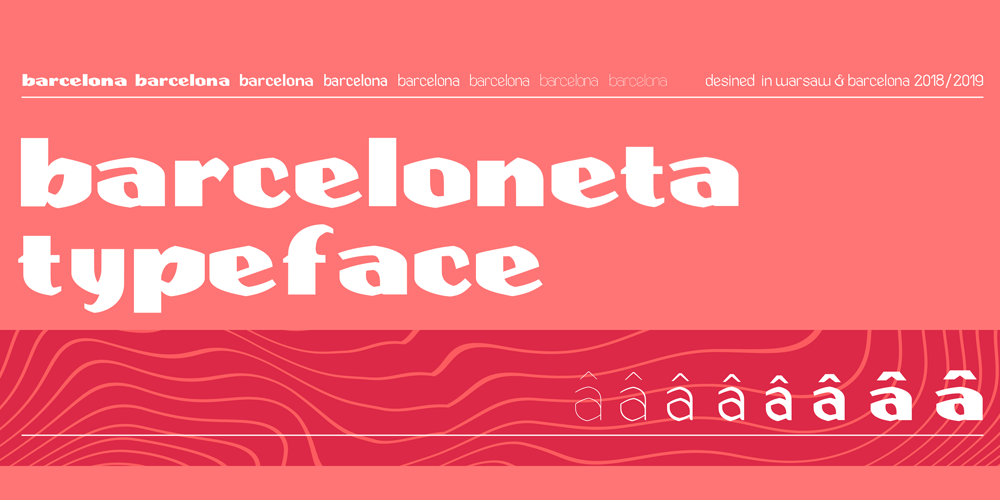
Barceloneta
Barceloneta font
Barceloneta Font Family was designed by Konrad Łukasiak and published by Typophobia. Barceloneta contains 8 styles and family package options. Barceloneta is a simple sans-serif font, with heavy bold and very characteristic soaring accents, referring to the shape of sharp towers in the building standing in the very center of Barcelona, designed by Gaudí – the Sagrada Familia.Most of the design work on the font also took place during the stay in the aforementioned city.As a result, a typeface with very different thicknesses was created, containing 364 glyphs, characteristic – in eight varieties, which, thanks to its diversity, can be used both as a headline typeface, but also one used for the composition of continuous text (which was not present in the initial assumptions).